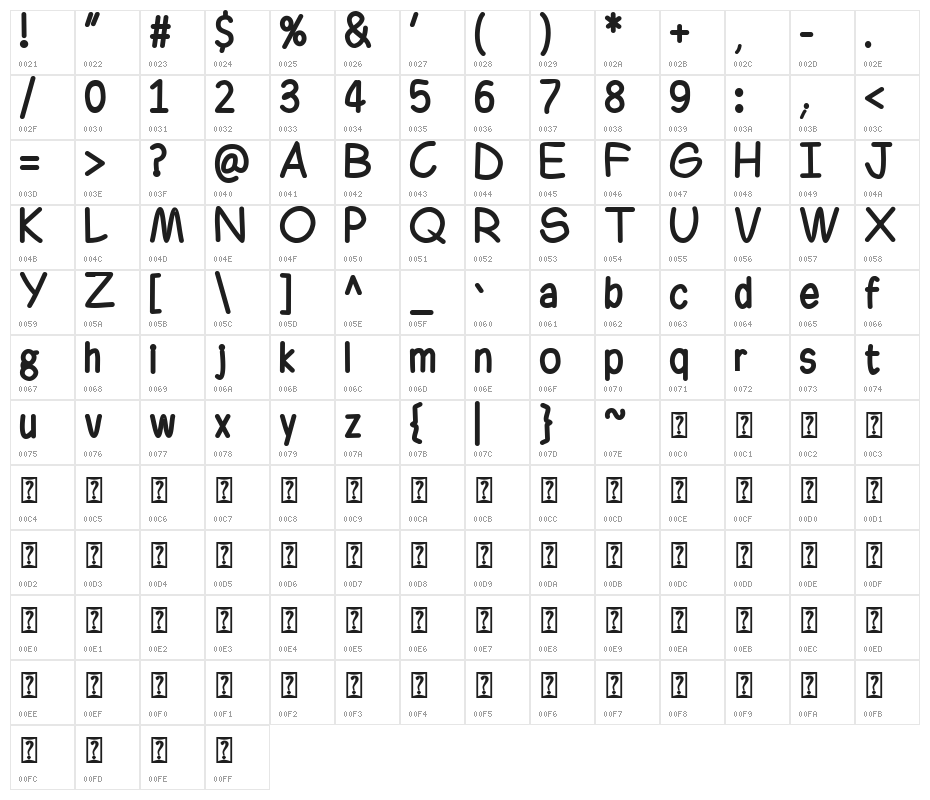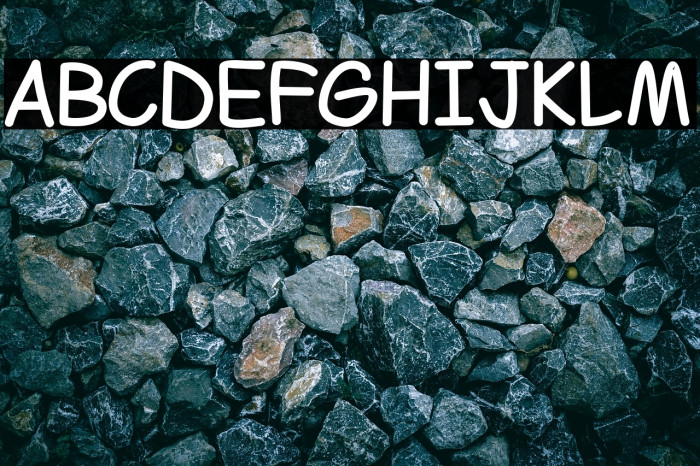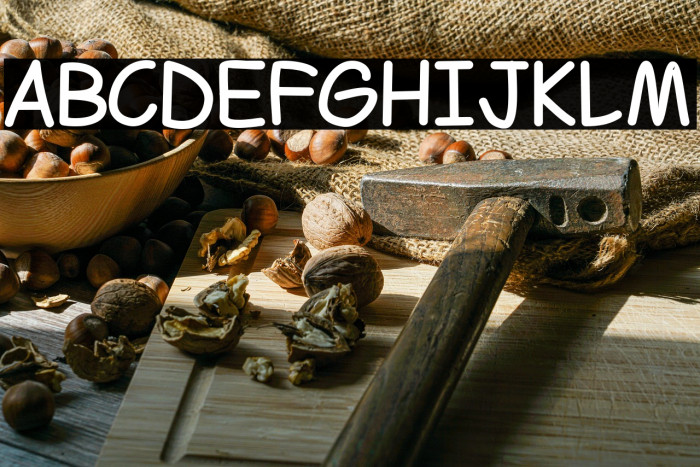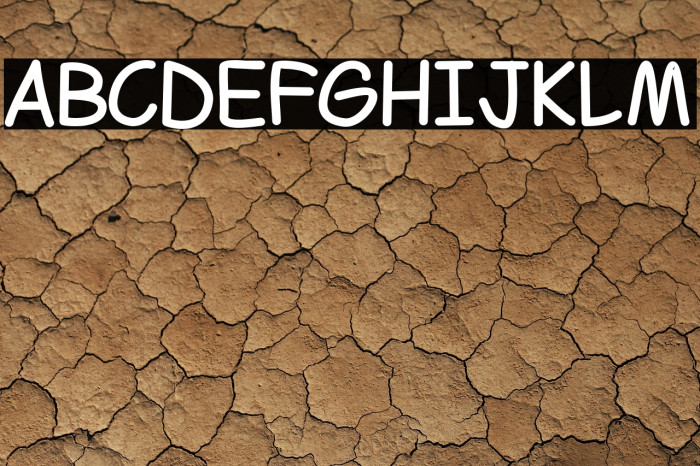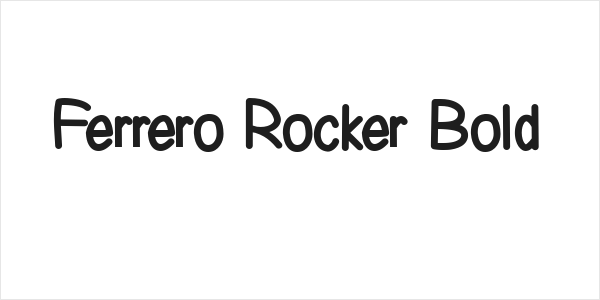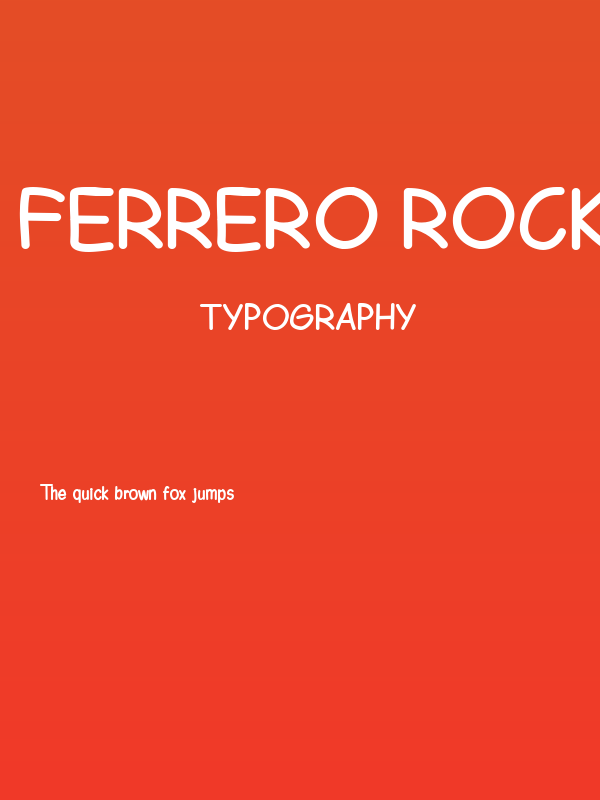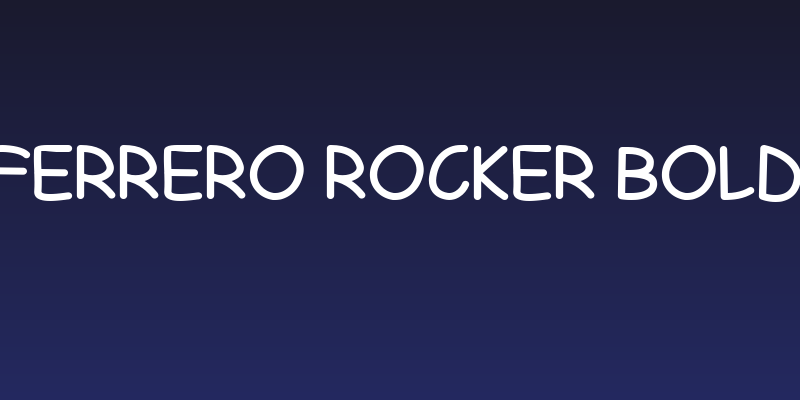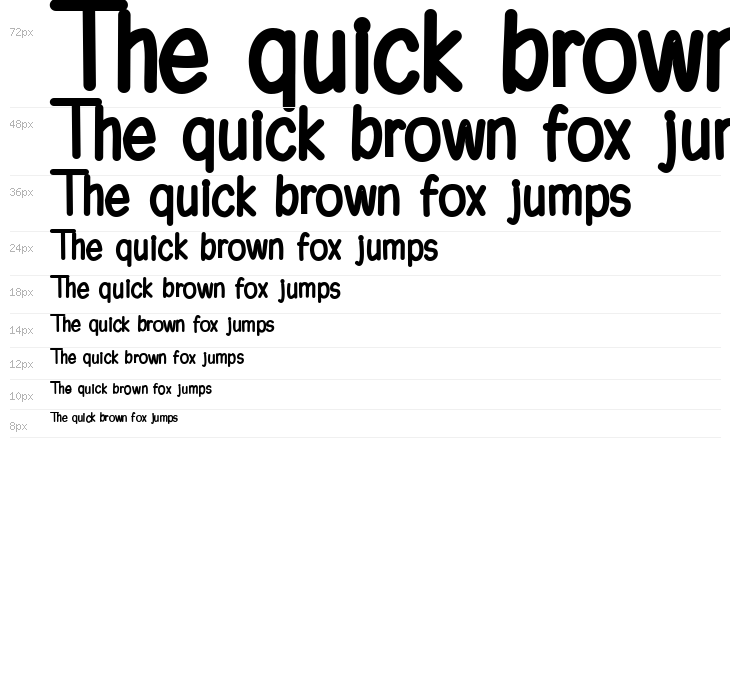
Ferrero Rocker Bold Font
Ferrero Rocker Bold Description
This font features a playful and bold style with rounded edges, giving it a friendly and approachable appearance. The characters are uniformly thick, contributing to a consistent and cohesive look across both uppercase and lowercase letters. The numbers and special characters maintain the same rounded and bold characteristics, ensuring readability and visual harmony. The font's design is casual yet impactful, making it suitable for a variety of creative applications.
| Proposed Projects | Ideal for children's books, playful branding, casual invitations, and social media graphics. |